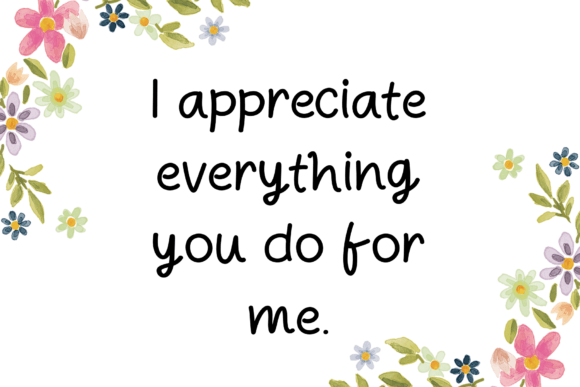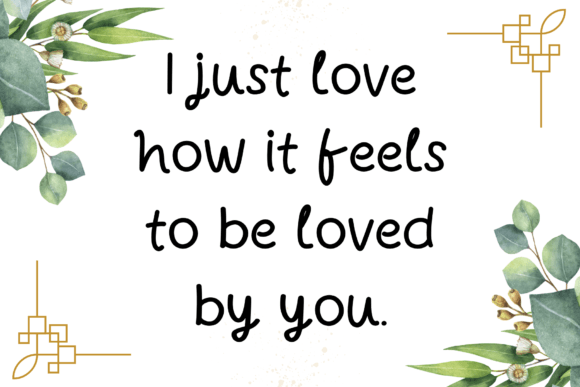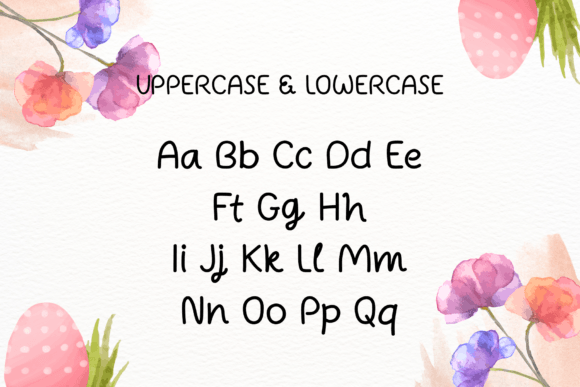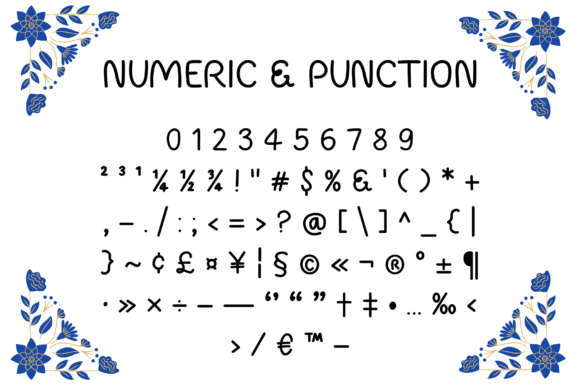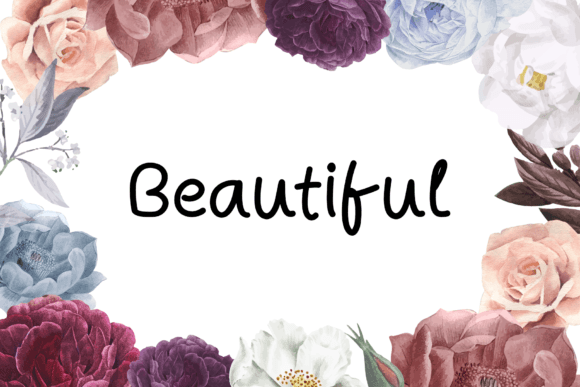
Adding a Touch of Handwritten Elegance to Your Designs
Have you ever sat at your desk, staring at a blank sheet of paper, and suddenly felt the urge to create something beautiful? For designers, that moment of inspiration can be a game-changer. It’s the spark that sets off a chain of creativity, leading to a stunning design that leaves a lasting impression.
That’s where Beautiful Font comes in – a charming and elegant typeface that adds a handwritten touch to any design. Whether it’s a wedding invitation, a thank you card, or a business logo, Beautiful Font is the perfect choice to give your design a personal and unique feel.
For designers, Beautiful Font is a valuable tool that can elevate their work to new heights. Its versatility and elegance make it a must-have in any design arsenal, and its wide range of applications ensures that it will always be in demand.
Key Features of Beautiful Font
- Unique Characteristics: The font features a unique blend of elegance and sophistication, with subtle flair and ornate details that set it apart from other sans-serif fonts.
- Character Set: Beautiful Font includes a comprehensive character set, covering Latin, Cyrillic, and Greek alphabets, as well as various punctuation marks and symbols.
- Font Weight: The font offers three font weights: Light, Regular, and Bold, allowing designers to achieve a range of visual effects and emphasize specific text elements.
Beautiful Font Review
I’ve been using “Beautiful Font” for a few projects now, and overall, I’m quite impressed. Here’s what I like about it:
- ✨ The font’s aesthetics are indeed beautiful, with a unique blend of elegance and sophistication. It’s perfect for high-end branding and luxury products.
- ✨ The font is highly customizable, with a wide range of styles and sizes to choose from. This makes it easy to adapt to different design requirements.
- ✨ The font is well-suited for digital and print applications, making it a great choice for multi-channel marketing campaigns.
However, I do have some reservations:
- ⚠️ The font can be quite heavy, which may make it difficult to read in large blocks of text. It’s best used for headings and short paragraphs.
- ⚠️ The font may not be suitable for all audiences, as it can come across as overly formal or even pretentious. Use it sparingly and with caution.
Overall, I think “Beautiful Font” is a great choice for designers looking to add a touch of luxury and sophistication to their work. While it has some limitations, its unique aesthetic and customization options make it a valuable addition to any design toolkit.
Beautiful Font: A Practical Application Guide
Tips for Getting the Most Out of Beautiful Font
Use Beautiful Font for headings and titles to add a touch of elegance to your design. Experiment with different font sizes and colors to create visual hierarchy and emphasis. You can also use Beautiful Font in combination with other fonts to create a unique and visually appealing design.
Beautiful Font is suitable for a wide range of designs, including:
Blog and website headers
Presentations and reports
How do I access the advanced typographic features of Beautiful Font?
Beautiful Font supports advanced typographic features such as ligatures, swashes, and ornaments. To access these features, you will need to use a design application that supports OpenType font technology, such as Adobe Illustrator or InDesign. You can also use the font’s built-in features in applications that support font embedding, such as Microsoft Word or Google Docs.